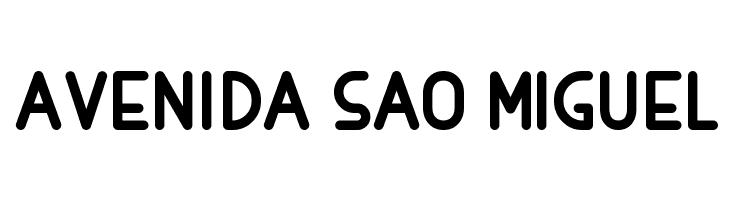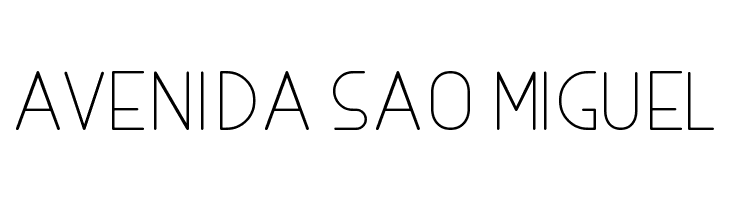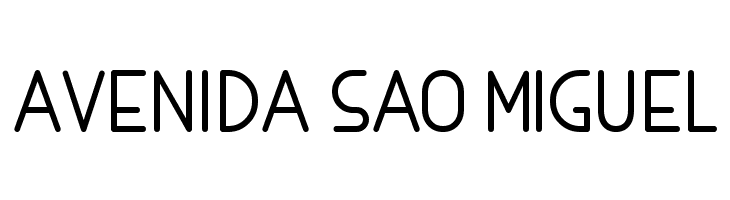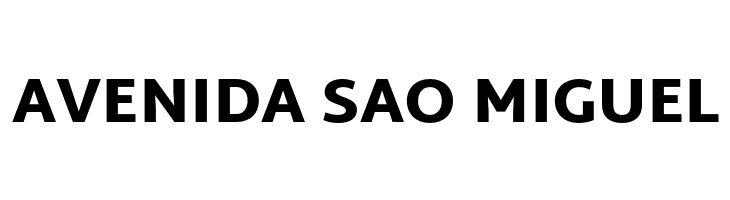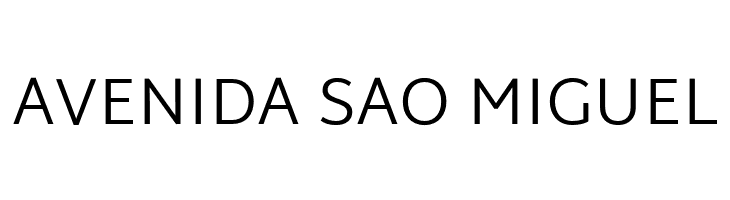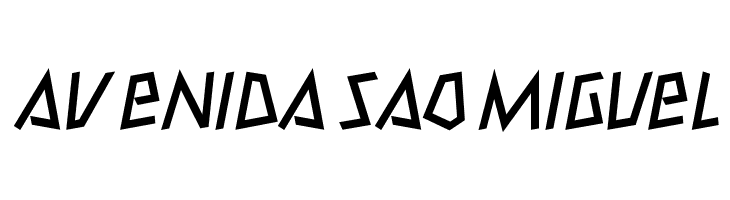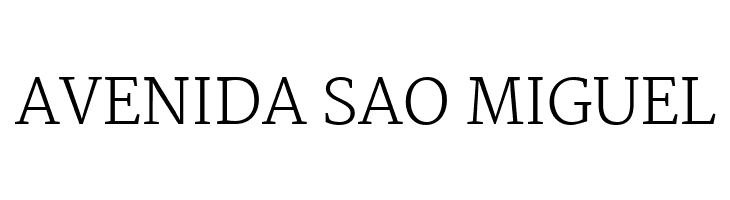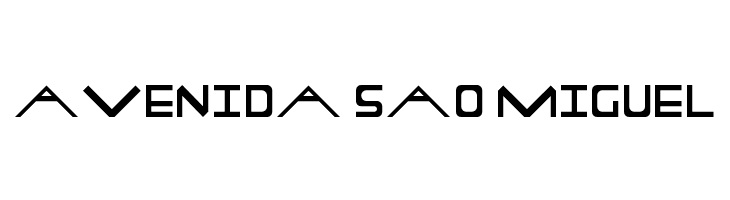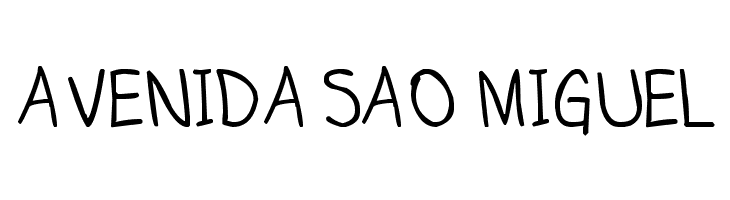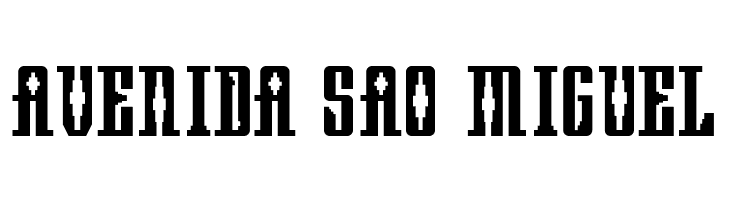
( Fonts by TypeOff )
A bold, modern sans-serif font with clean lines and excellent readability.
( Fonts by TypeOff )
A modern sans-serif font with bold, geometric letterforms and excellent readability.
( Fonts by TypeOff )
A bold, modern sans-serif font with a strong and assertive appearance.
( Fonts by TypeOff )
A bold, modern sans-serif font with a strong and impactful presence.
( Fonts by TypeOff )
A clean, modern sans-serif font with a light weight and excellent legibility.
( Fonts by TypeOff )
A modern, ultra-light sans-serif font with clean lines and excellent readability.
( Copyright (c) 2015 Dan Reynolds. )
A refined serif font with elegant strokes and balanced design.
( Fonts by Martin Bibovski )
A playful, handwritten font with irregular, dynamic strokes.
( Fonts by Akos Polgardi )
A bold, geometric font with a futuristic and digital aesthetic.
( Maximage - www.maximage.biz )
A bold, gothic-inspired font with sharp, angular edges and dramatic styling.
( Maximage - www.maximage.biz )
A bold, playful font with rounded edges and a modern style.
( Maximage - www.maximage.biz )
A bold, playful outline font with rounded edges and a modern aesthetic.
( Maximage - www.maximage.biz )
A decorative, maze-like font with bold, interlocking lines and a futuristic style.
A bold, rounded sans-serif font with smooth curves and uniform strokes.
A modern, light sans-serif font with clean lines and balanced spacing.
A modern, rounded sans-serif font with a clean and approachable design.
( Miswar Miswar - j.gs/BICk )
A geometric, hexagonal, pixelated font with consistent stroke thickness.
A bold, decorative font with geometric and tribal influences, featuring intricate cut-out patterns.
( Vlad Viperov )
A playful, blob-like font with a whimsical and organic style.
( Vlad Viperov )
A playful, bubble-like font with rounded edges and consistent thickness.
( Fonts by Irina ModBlackmoon )
A gothic, thorny font with intricate, sharp embellishments and dramatic flourishes.
( Fonts by Chris Vile )
A bold, distressed font with sharp, angular edges and a rugged appearance.
A bold, slab serif font with a mechanical and structured design.
A bold, slab serif font with strong, block-like serifs and consistent weight.
A bold, condensed font with a mechanical and utilitarian style.
A bold, condensed, and oblique font with a modern mechanical style.
A bold, extended font with a mechanical and industrial aesthetic.
A bold, extended, and oblique font with a mechanical precision and modern appeal.
A bold, oblique serif font with a mechanical and dynamic style.
A bold, outlined mechanical font with a strong, industrial style.
A bold, outlined, oblique font with a mechanical and industrial style.
A mechanical, condensed font with monospaced, uniform strokes and clear legibility.
A mechanical, condensed, and oblique font with a modern and dynamic style.